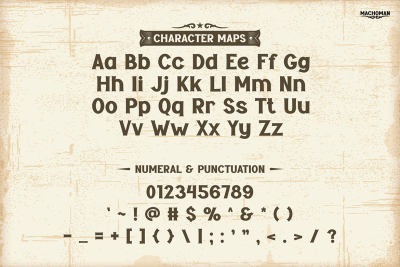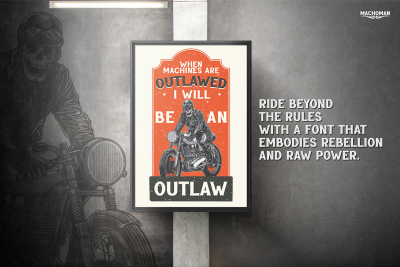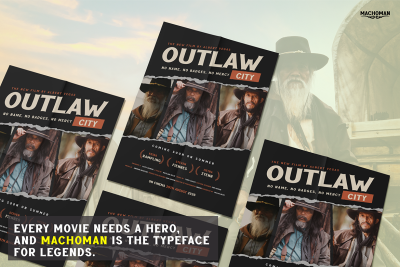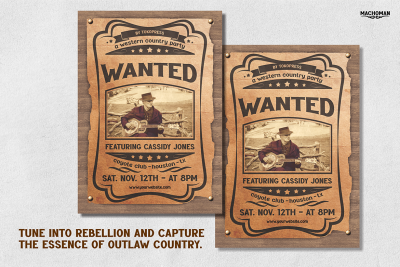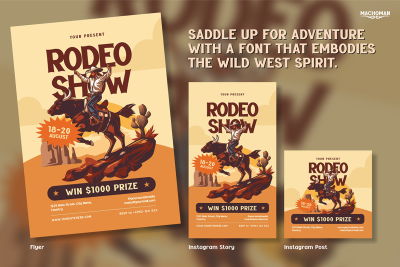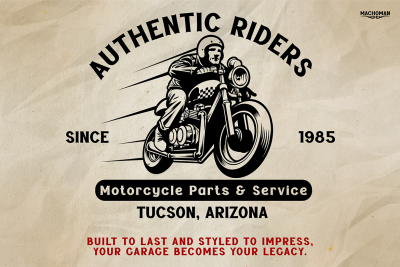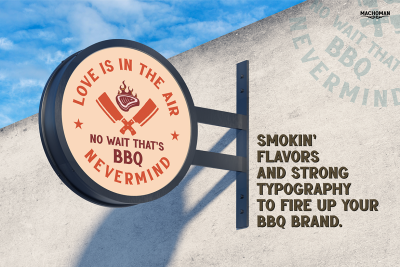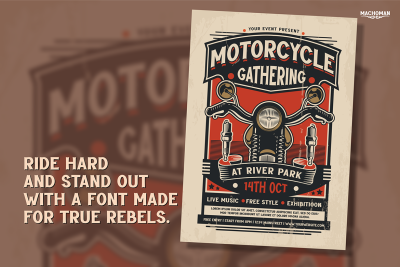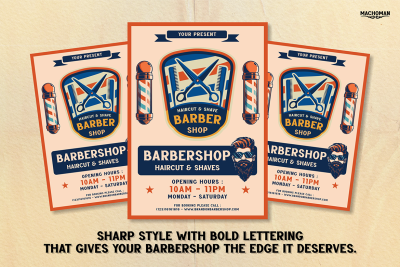
Retro Font MACHOMAN grabs attention with its bold and striking design. The typeface combines vintage aesthetics, rugged charm, and strong letterforms to evoke nostalgia. Its playful curves and sturdy lines create a perfect balance for classic, adventurous themes. Additionally, the slightly distressed texture adds character, while the cowboy hat and western details further enhance its unique style. As a result, this font stands out in retro typography and brings a lively, creative energy to any project.
This font adapts easily to different creative projects, providing versatility for designers and businesses alike. Use Retro Font MACHOMAN for posters, product packaging, or branding materials. Its bold characters and retro charm make titles, logos, and headlines truly unforgettable. Furthermore, its dynamic appearance works well across both print and digital formats, ensuring a consistent and professional look.
Another noteworthy feature of Retro Font MACHOMAN is its ability to evoke a sense of warmth and nostalgia. The fontโs western-inspired details connect viewers to simpler times, making it perfect for projects with themes of adventure, exploration, or heritage. Whether youโre creating content for a modern audience or one that appreciates retro vibes, this font delivers with style and authenticity.
Retro Font MACHOMAN Perfect for Designers and Businesses
Graphic designers and branding agencies will love this font for its vintage western vibe. It suits rustic, rugged, or nostalgic themes, making it ideal for cafes, breweries, apparel brands, and artisanal products. Furthermore, it works perfectly for businesses that want to evoke an adventurous and timeless appeal. Retro Font MACHOMAN can also help brands establish a memorable identity by delivering bold and impactful visuals.
In addition, event planners can use it for country fairs, rodeos, or retro-themed parties. Social media marketers will also find it effective for bold campaign visuals with an adventurous feel. This font works equally well for digital designs and physical items like signage, menus, or merchandise. Its versatility allows designers to bring any vision to life with ease.
Retro Font MACHOMAN also caters to personal projects. For example, it can bring life to handmade posters, DIY invitations, or vintage-themed artwork. Hobbyists and creatives alike will appreciate its dynamic style and ability to transform simple projects into eye-catching designs. Its bold yet friendly nature makes it suitable for a wide variety of creative ideas, from retro artwork to playful branding concepts.
Finally, this font is an essential tool for anyone who values retro typography. Whether youโre a professional designer, a hobbyist, or a business owner, Retro Font MACHOMAN offers the perfect combination of style, flexibility, and character. It doesnโt just serve as a typefaceโit tells a story and helps bring your creative vision to life.